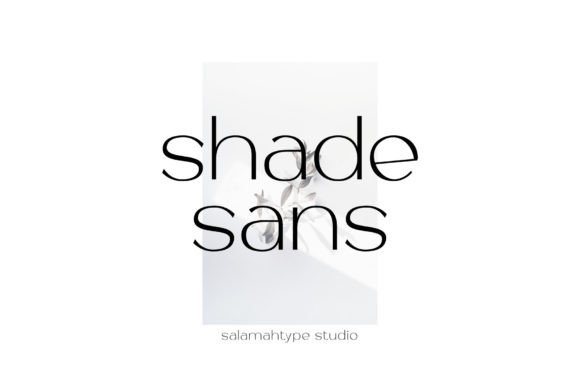
Introducing Shade Sans Font, the best font for web page design, created by SalamahType. This clean and modern sans-serif font is the ultimate solution for all your design needs. With its captivating design and elegant curves, Shade Sans is perfect for creating a stunning brand identity and elevating your designs to the next level.
Shade Sans Font is the perfect tool for designers, entrepreneurs, and anyone looking to enhance their online presence. Its versatility makes it ideal for a wide range of projects, from logos and social media posts to advertisements, product packaging, wedding invitations, product designs, labels, photography, watermarks, and stationery.
If you're looking for a font that can transform your design into a work of art, look no further than Shade Sans Font. Its eye-catching design will captivate your audience and create a lasting impression. You can easily use this font to create unique and memorable designs that will make your brand stand out.
Whether you're a beginner or a seasoned professional, Shade Sans Font is the perfect choice for all your design needs. Its intuitive design and ease of use make it simple to create stunning designs in minutes. You don't need to be a graphic design expert to create professional-looking designs with this font.